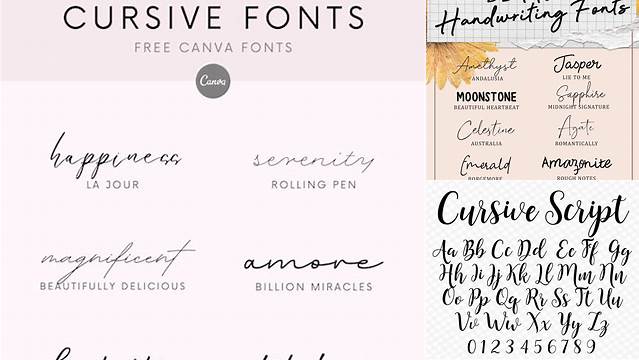
Free Cursive Handwriting Fonts For Your Projects
Hey guys! Ever wanted to add a touch of elegance, a personal flair, or that classic, sophisticated vibe to your designs, invitations, or even your digital notes? Well, you're in luck! Today, we're diving deep into the wonderful world of free cursive handwriting fonts. These aren't just any fonts; they're the ones that mimic the beautiful flow of real handwriting, often evoking a sense of personal touch and artistic expression. Whether you're a seasoned designer looking for that perfect script or a beginner just exploring the possibilities, finding high-quality, free options can be a game-changer. We'll explore where to find them, what makes a good cursive font, and how to use them effectively to elevate your projects from ordinary to absolutely stunning. So, grab your favorite beverage, get comfy, and let's unlock the secrets to incorporating that gorgeous, free cursive handwriting look into your creative endeavors. Get ready to discover some amazing resources that will make your text sing with personality and style!
Discovering the Charm of Free Cursive Handwriting Fonts
The allure of cursive handwriting is undeniable. It speaks of tradition, personal connection, and a certain je ne sais quoi that block letters often lack. When you can access free cursive handwriting fonts, you're essentially getting a piece of that charm without the cost. These fonts are fantastic for a multitude of applications. Imagine wedding invitations that feel intimate and bespoke, thank-you notes that convey genuine gratitude, or even branding for a boutique that needs to exude a sense of handcrafted quality. The beauty of these free resources lies in their accessibility. You don't need to be a professional graphic designer with a hefty budget to achieve a polished, script-like aesthetic. Many talented font creators offer their work for free, either for personal use or even for commercial projects, which is a huge win for creatives everywhere. The key is knowing where to look and what to look for. We're talking about fonts that aren't just scribbles but are meticulously designed to capture the nuances of human penmanship – the smooth transitions between letters, the subtle variations in stroke width, and the overall graceful movement. So, let's start exploring the vast landscape of free typographic artistry available at your fingertips, all designed to bring that elegant, personal touch to whatever you're creating. It’s about making your message feel more human and more memorable.
The Versatility of Free Script Fonts for Various Projects
When we talk about free script fonts, we're opening up a whole world of design possibilities. These aren't just limited to formal invitations; their versatility is truly remarkable. Think about branding for artisanal coffee shops, bakery logos, or boutique fashion brands. A well-chosen script font can instantly communicate a sense of quality, craft, and personal attention. For digital creatives, these fonts are goldmines. They can be used for social media graphics, blog post headers, website elements, or even personal journaling apps to give your entries a more stylish and unique feel. The key differentiator for cursive handwriting fonts within the broader category of script fonts is their direct mimicry of penmanship. This often results in a more organic, flowing, and sometimes even slightly whimsical appearance. Many free options are designed with extensive character sets, including ligatures and alternate glyphs, which help to create a more authentic, hand-drawn look. This means that common letter combinations will automatically connect in a natural way, avoiding that stiff, repetitive look that some fonts can have. We're talking about fonts that feel alive and dynamic. Whether you're crafting a heartfelt poem, designing a chic party invitation, or personalizing a digital planner, the right free script font can elevate your work significantly. It’s about finding that perfect balance between legibility and stylistic flair, ensuring your message is both beautiful and easily understood. The accessibility of these free resources means you can experiment and find the ideal fit for any project without breaking the bank.
Where to Find the Best Free Cursive Handwriting Fonts Online
Choosing the Right Style of Free Cursive Handwriting Font
So, you've found a bunch of free cursive handwriting fonts, but which one is the right one? This is where personal taste and project goals really come into play. Cursive fonts aren't monolithic; they come in a dazzling array of styles. You've got your delicate, thin-stroked fonts that feel incredibly elegant and sophisticated, perfect for wedding stationery or formal event invitations. Then there are the bolder, more expressive script fonts, which have a stronger presence and can be great for headlines, logos, or designs that need a bit more punch and personality. Some cursive fonts mimic a very classic, almost calligraphic style, while others lean towards a more casual, modern handwriting look. Consider the overall mood and message you want to convey. Is your project whimsical and fun? Maybe a bouncy, slightly irregular script would work best. Is it serious and luxurious? A refined, consistent script might be the way to go. Legibility is also a huge factor, especially for longer blocks of text. While a super-ornate, swirly font might look stunning as a heading, it could be a nightmare to read in a paragraph. Always test your chosen font with actual text. See how it looks at different sizes. Does it feel friendly? Professional? Romantic? The free cursive handwriting fonts available offer so much variety that you can definitely find one that perfectly captures the essence of your project. Don't be afraid to download a few options and try them out in your design software. Sometimes, seeing them in context is the only way to know for sure. It’s all about matching the font’s personality to your project’s needs.
Exploring Different Categories of Free Cursive Fonts
Beyond the basic script, the world of free cursive fonts offers a surprising amount of variety. We're not just talking about one look; there are sub-categories that cater to very specific aesthetic needs. For instance, you have the classic calligraphy fonts, which often feature high contrast between thick and thin strokes, mimicking the look of traditional dip pens. These are perfect for formal invitations, certificates, or anything needing a touch of timeless elegance. Then there are the modern script fonts, which tend to be cleaner, perhaps with less flourish, and often feel more contemporary and approachable. They can be great for branding, social media, or websites that want a stylish yet readable script. Another popular style is the hand-lettered font, which aims to replicate the look of someone drawing letters by hand, often with a more personal, imperfect, and charming feel. These can range from casual brush scripts to more structured lettering. Within cursive, you also find brush script fonts, known for their energetic strokes and often thicker appearance, giving a dynamic and artistic vibe. Think about using these for event posters or album covers. When you're searching for free cursive handwriting fonts, knowing these categories can help you narrow down your search. Are you going for formal, casual, artistic, or vintage? Each category serves a different purpose and evokes a different emotion. This diversity means you can find a free font that precisely matches the tone and style of your project, making your design truly unique and impactful. It's like having a whole toolbox of lettering styles at your disposal, completely free of charge!
Classic Calligraphy Style Free Cursive Fonts
When you think of elegance and tradition, classic calligraphy style free cursive fonts often come to mind. These are the fonts that channel the refined beauty of historical handwriting, often inspired by centuries-old lettering traditions. They typically feature dramatic variations in stroke width – think thick downstrokes contrasted with delicate, thin upstrokes. This high contrast is achieved through tools like dip pens or brush pens, and fonts designed to mimic this effect lend an air of sophistication and luxury to any project. They are incredibly popular for wedding invitations, formal event announcements, greeting cards, and any design aiming for a timeless, upscale feel. Finding high-quality, free cursive handwriting fonts in this classic style can be a challenge, but they do exist! Look for fonts that have a graceful flow, consistent letterforms, and often include ornate swashes or flourishes that can be added at the beginning or end of words for extra flair. Legibility can sometimes be a concern with very decorative calligraphy fonts, so it's always best to test them with your intended text and at the size you plan to use them. Some designers offer free versions of their premium calligraphy fonts, which are a great way to sample the style. Remember to check the licensing – many classic styles are intended for personal use, but commercial licenses are sometimes available. These fonts evoke a sense of heritage and artistry, making your text feel special and meticulously crafted. They are truly a way to make your message stand out with unparalleled grace and style, giving your designs that extra touch of class that resonates with a sense of history and fine craftsmanship. They are perfect for making a lasting impression.
Modern & Casual Free Cursive Handwriting Fonts
On the flip side of the classic calligraphy, we have the modern and casual free cursive handwriting fonts. These styles are all about approachability, contemporary feel, and often a touch of playful personality. Unlike their more formal counterparts, modern scripts might have cleaner lines, less dramatic stroke contrast, or a more relaxed, almost bouncy baseline. They often feel more like everyday handwriting – think of the stylish script you might use in a personal note or a trendy café's menu. These are fantastic for branding startups, social media graphics, blog headers, digital planners, or anything that needs to feel friendly, hip, and current. The